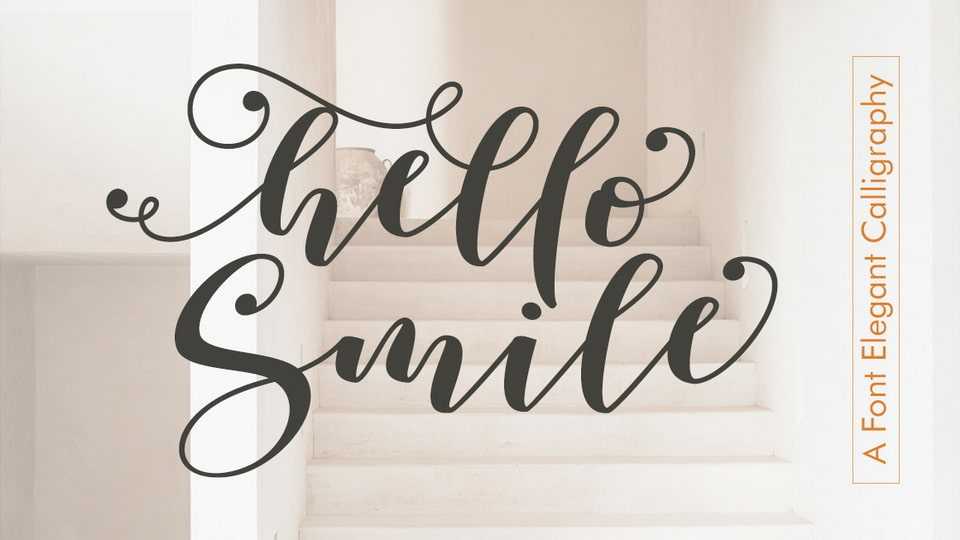
Download Hello Smile font, an original handwritten simple typeface. This font will look beautiful on any design, wedding designs, branding materials, blog titles, quotes and invitations, business cards.